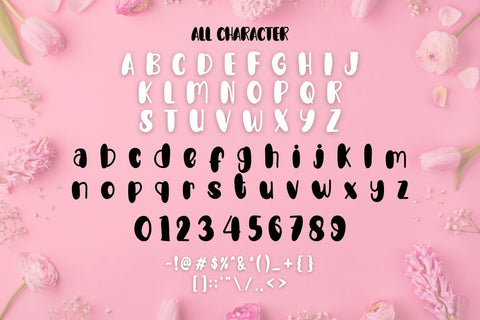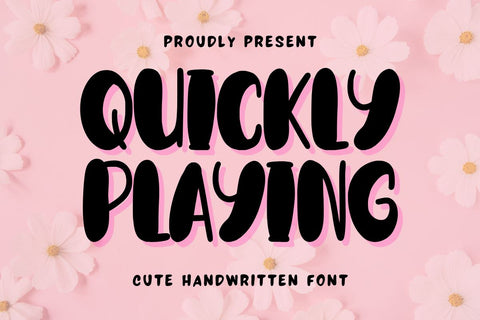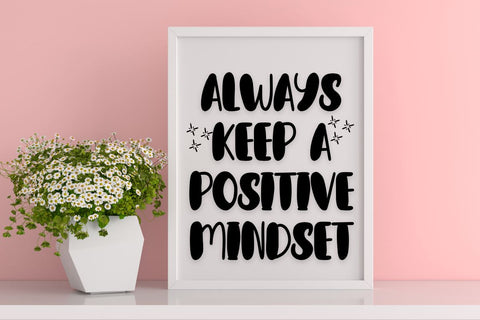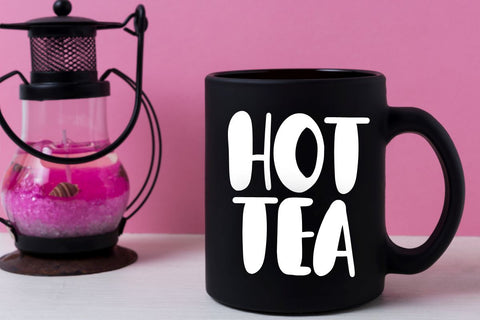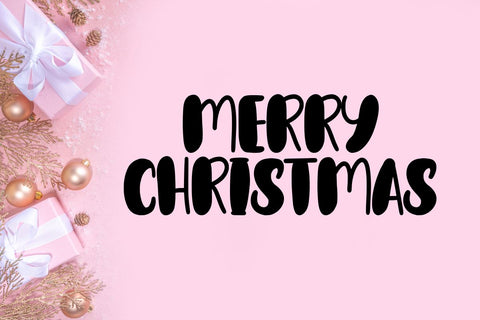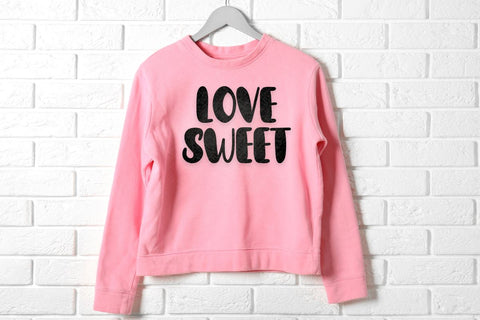
Quickly Playing - Cute Handwritten Font
Hi, Introducing Quickly Playing - Cute Handwritten Font
A Cute Handwritten Font with a cute and fun style. This font is cool for quotes, greeting cards, frame mockups, t shirts, mugs etc.